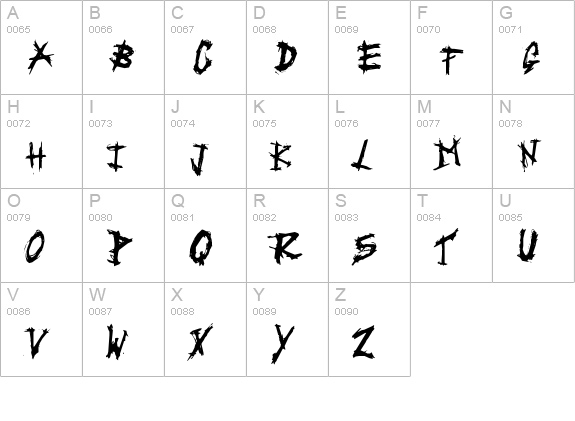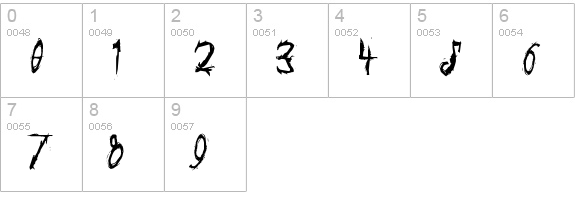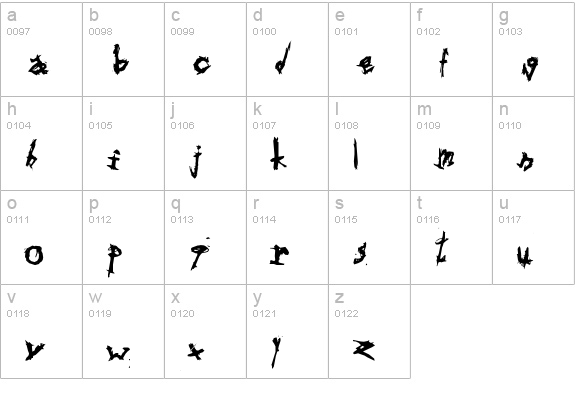
Triballaka Font Details
Introducing Triballaka, a captivating and versatile font that beautifully combines elegance with a touch of playfulness. This font is the perfect choice for those seeking to add a unique and eye-catching element to their designs. With its well-balanced curves and meticulously crafted details, Triballaka effortlessly captures attention and conveys a sense of sophistication. But what truly sets Triballaka apart is its availability. This extraordinary font is not only visually stunning but also comes with an incredible advantage - it is completely free! Yes, you read that right. Triballaka can be freely downloaded at FontsMarket.com, making it accessible to anyone in need of a striking typeface for their projects. Whether you're a graphic designer working on a logo, a website developer seeking to enhance user experience, or a creative individual looking to add a personal touch to your designs, Triballaka is the font that will elevate your work to new heights. Its versatility allows it to seamlessly adapt to various design styles, making it suitable for a wide range of applications. With Triballaka, you can say goodbye to compromising on quality due to budget constraints. This extraordinary font not only boasts remarkable aesthetics but also guarantees a smooth and hassle-free downloading experience. Simply head over to FontsMarket.com and get your hands on this remarkable typeface, without spending a penny. In a world where creativity knows no bounds, Triballaka serves as a beacon of inspiration and possibility. Unleash your imagination and let this free font be your trusted companion on your design journey. Download Triballaka today and witness the transformative power of typography at its finest.